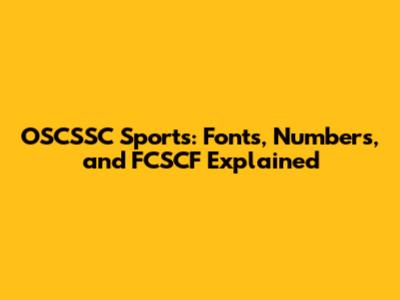
- Font Selection: The font is the first thing fans see. It’s what gives a team its personality. A classic, bold font can evoke feelings of tradition, while a modern, sleek font can give the team a cutting-edge feel. Teams must consider the legibility of the font. It should be easy to read from a distance, on any platform, and in different environments. Think about the font's style and how well it goes with the team's image, the city's background, and the sport itself. Choosing the right font is a careful balance of art, brand, and functionality. All design choices must be considered.
- Number Design: Numbers on jerseys are more than just identification; they're an integral part of a team's identity. The design of the numbers must be clear, easy to read, and match the team's overall look. Teams might use different number styles to reflect their identity, whether they opt for a traditional style or a more contemporary look. Teams might also use special designs for special games or events. The number font and style must match the team's colors and the fabric of the jersey.
- Branding Elements (for FCSCF): Assuming FCSCF is a league, team, or event, its branding is essential. The logo, the colors, and the font all play a part in creating a unified image. If FCSCF is a team, its logo may show symbols or images of its city or sport. The colors selected reflect the team's identity and can be used in different areas, such as the jerseys, the website, and the arena. All branding elements must be consistent to reinforce FCSCF's brand recognition and appeal to the target audience.
- Building Brand Recognition: Consistent branding elements, such as fonts, numbers, and colors, help fans immediately recognize the team. This familiarity leads to increased trust and loyalty.
- Creating Emotional Connections: Branding allows teams to convey their values and build a sense of community. When fans connect with a team's brand, they feel like they are part of a shared experience.
- Enhancing Team Visibility: Effective branding makes the team stand out in a crowded market. This is achieved by creating a unique image that attracts media attention, sponsors, and, of course, new fans.
- Minimalism: Clean, simple designs are making a statement. Teams are moving towards straightforward logos, simple fonts, and less clutter, which allows the core message to shine through.
- Retro Revivals: Vintage looks are back! Teams are pulling inspiration from their past, using classic fonts, colors, and logos to celebrate their history.
- Interactive Designs: Digital media is changing the game. Teams use motion graphics, animations, and interactive content to grab fans' attention and create an immersive experience.
- Sustainability: Teams and leagues are using eco-friendly materials and designs. This trend reflects a growing commitment to environmental responsibility.
Hey sports fans, ever wondered about the nitty-gritty details that make your favorite teams' jerseys and logos pop? Let's dive deep into the world of OSCSSC Sports, exploring the fascinating aspects of fonts, numbers, and FCSCF, giving you a better understanding of the visual language of the game. Get ready to level up your sports knowledge, guys!
Decoding the Visual Language of Sports
Before we jump into the specifics, let's appreciate how important visual identity is in sports. The fonts, numbers, and even the smallest details of a team's branding are carefully chosen to reflect their values, history, and personality. It's more than just aesthetics; it's about building a brand that resonates with fans and creates a sense of belonging. The choice of a particular font can evoke feelings of tradition, modernity, or even aggression, shaping how we perceive a team's image. Numbers, too, play a vital role, not just identifying players but also carrying symbolic weight. Think of iconic numbers associated with legendary athletes, instantly recognizable and imbued with the spirit of the game. The overall design, including the specific font styles and the way numbers are presented, creates a cohesive visual identity that strengthens team recognition and fan loyalty. It's a way for teams to communicate their values and aspirations, building a strong and recognizable brand within the competitive world of sports. The visual representation of a team is crucial to its success and its ability to connect with its audience. Understanding these details can help us better appreciate the artistry behind the game and its cultural significance.
Fonts: The Silent Communicators
Fonts are like the unsung heroes of sports branding. They're the silent communicators that convey a team's personality. Whether it's the classic, bold look of a serif font that screams tradition or the sleek, modern feel of a sans-serif font that reflects innovation, the font choice is crucial. Teams often choose fonts that align with their city's character or reflect their team's style of play. A team in a historic city might opt for a font with a vintage feel, while a team in a tech-forward area could choose a futuristic font. The font must be legible and fit well with the overall design. Consider how different fonts affect the way we perceive a team. A strong, blocky font conveys strength and power, while a more elegant font can suggest sophistication and grace. Even the thickness of the lines, the spacing between the letters, and the use of italics can all impact the message. Choosing the perfect font is a balancing act of aesthetics, brand identity, and readability. A good font is not just pleasing to the eye; it's an essential element of brand recognition, helping fans instantly identify their team from afar. It's what differentiates one team from another. That font that you see in the store on the shirts represents your love for your team. The next time you're watching a game, take a moment to look at the fonts. Think about how they make you feel and the message they are sending. It might just change the way you see the game.
Numbers: More Than Just Digits
Numbers in sports are more than just a way to identify players on the field or court; they hold a special place in the hearts of fans. They're part of the team's history and become symbols of the athletes who wear them. Iconic numbers are linked to legendary players and have become symbols of success, dedication, and the unforgettable moments in sports history. Numbers can carry a lot of significance, from being the lucky number of a team's star player to representing a significant year in the team's history. The style and design of the numbers also matter. They have to be easily visible from any distance and match the team's branding. It's a blend of functionality and visual identity. From the simple, clean look of a classic number to the more intricate designs that reflect a team's modern style, the numbers on a jersey are a key part of the team's visual identity. The design of the numbers must be readable and fit within the overall aesthetic of the jersey. In the end, these numbers connect fans to the team's players, history, and culture. They remind us of the great moments and the players who made them happen.
FCSCF: Decoding the Acronym
Now, let's talk about FCSCF. This acronym might refer to a specific sports organization, team, or league. Without knowing the exact context, it's hard to provide a specific explanation, but let's break down some possibilities. It could be the name of a specific team, a league, or a competition, each of which would have its own unique history, branding, and rules. If it's a team, understanding its history, city, and values would be essential to appreciate its visual identity. If it's a league, the FCSCF logo, font, and number styles would be consistent across all teams in that league, building a unified brand. It might also be a competition or event, in which case the visual elements are designed to promote that event and draw fans. The font and design of the logos and jerseys must match the values of the league. So, the key is to pinpoint what it stands for in its specific context. Think about the colors used, the style of the logos, and even the type of events it hosts. Each element helps communicate what the brand is all about. Understanding the details can reveal a lot about the sports organization itself. Always consider the target audience. Are you trying to reach die-hard sports fans or attract new followers? The design and style choices can help communicate the values, culture, and spirit of FCSCF, ensuring that the brand connects with its target audience and leaves a memorable impact.